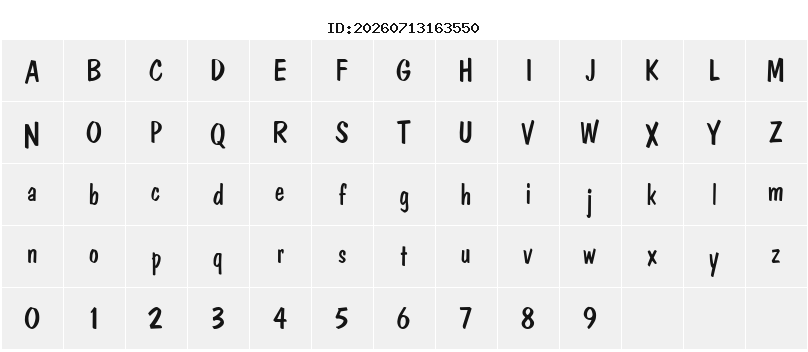
Banga SSi Preview
• Font Name: Banga SSi
• Full Font Name: Banga SSi
About Banga SSi.ttf
Banga SSi.ttf is a modern, elegant sans-serif font designed for ultimate readability and visual harmony. Perfect for branding, headlines, web design, and print materials.